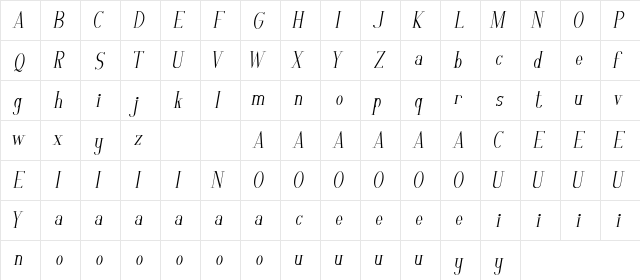
Aulion Demo Italic
Design Context for Aulion Demo Typeface
Aulion Demo offers clean, dependable letterforms without strong stylistic allegiance, making it a practical choice for designers who need flexibility. Its italic angle brings a sense of urgency and motion to the letterforms.
Pro Tip: Try Aulion Demo for annotation and caption copy alongside an upright companion — the contrast in angle creates a dynamic but ordered typographic system.